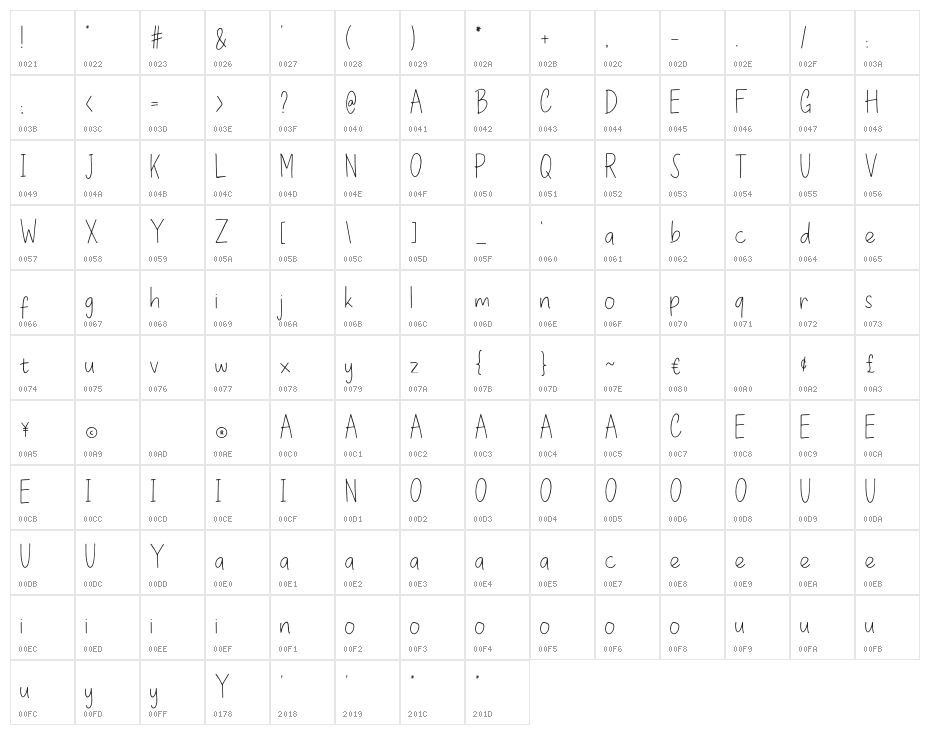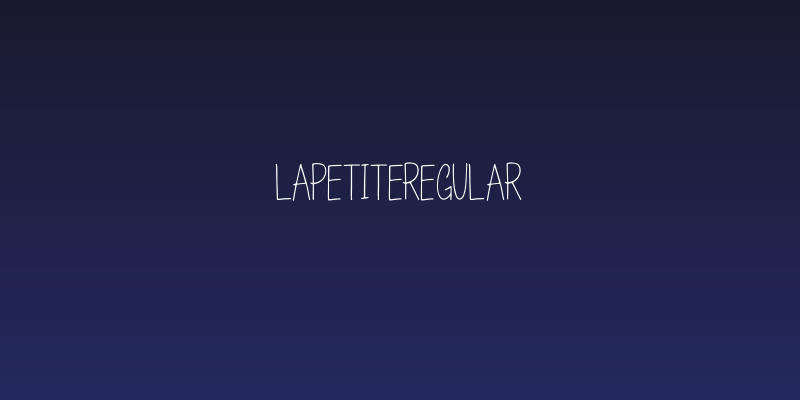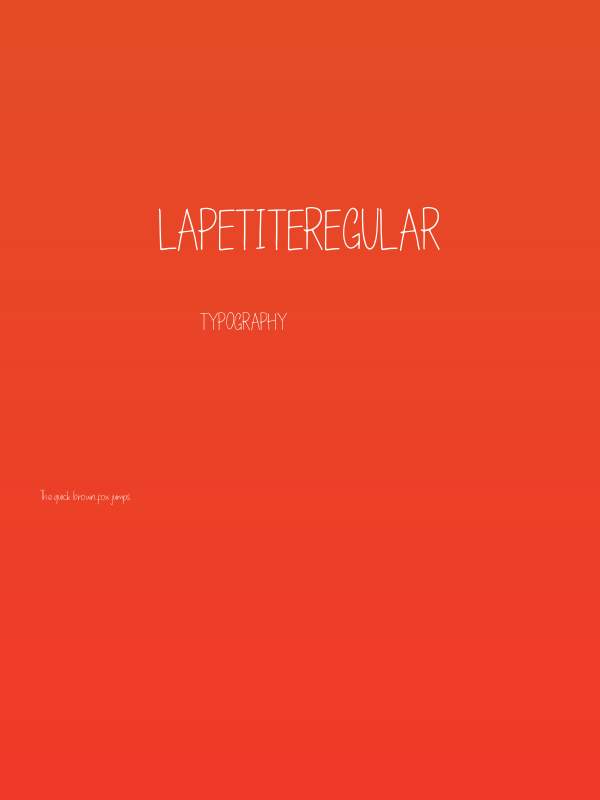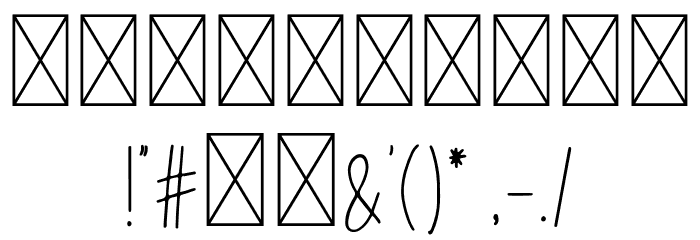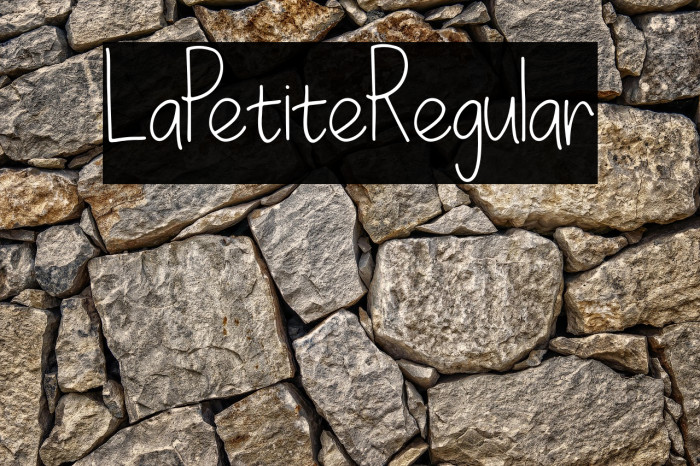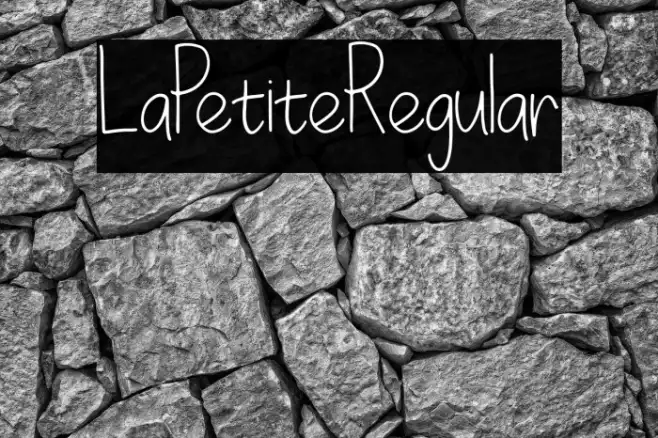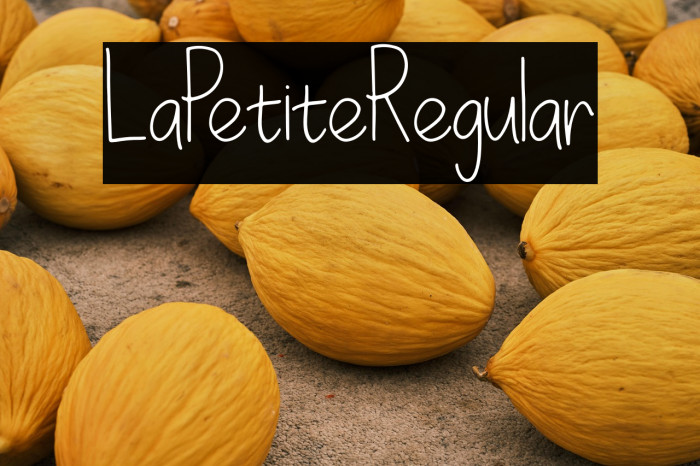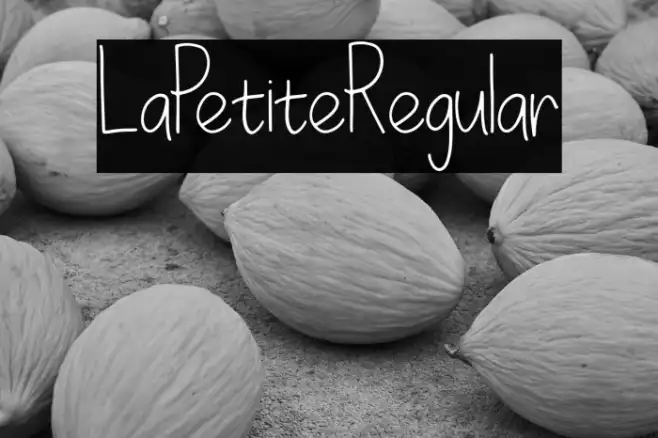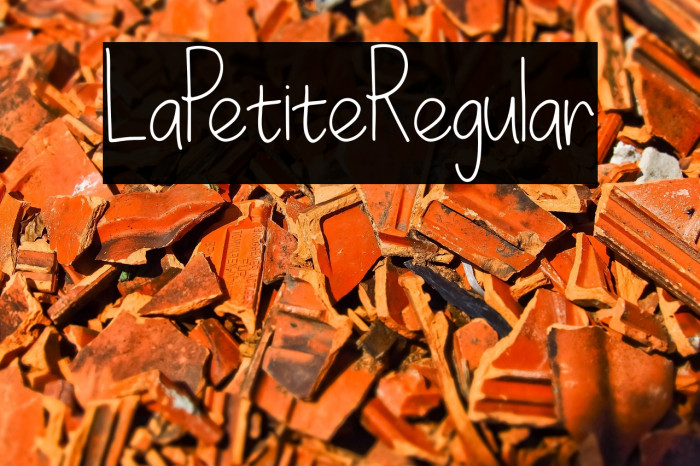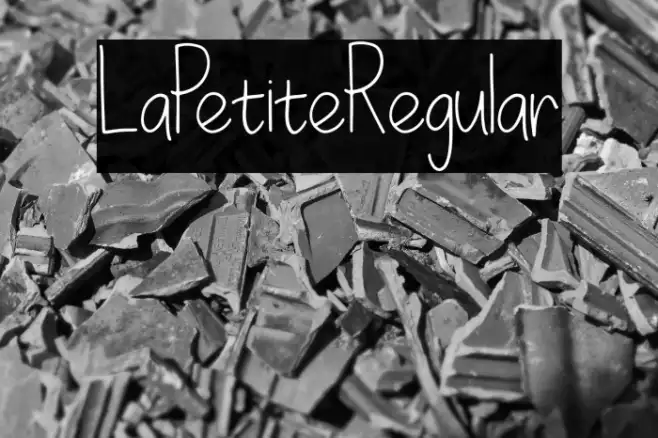
LaPetiteRegular Font
LaPetiteRegular Description
This font features a playful and casual handwritten style, characterized by its tall and narrow letterforms. The strokes are consistent in width, giving it a clean and uniform appearance. The uppercase letters are slightly taller than the lowercase, and the overall look is informal yet legible. The font's simplicity and charm make it ideal for projects that require a personal touch. Its design is straightforward, with minimal embellishments, allowing for easy readability. The spacing between characters is balanced, ensuring clarity in text presentation.
| Proposed Projects | Ideal for greeting cards, invitations, personal branding, and casual social media graphics. |